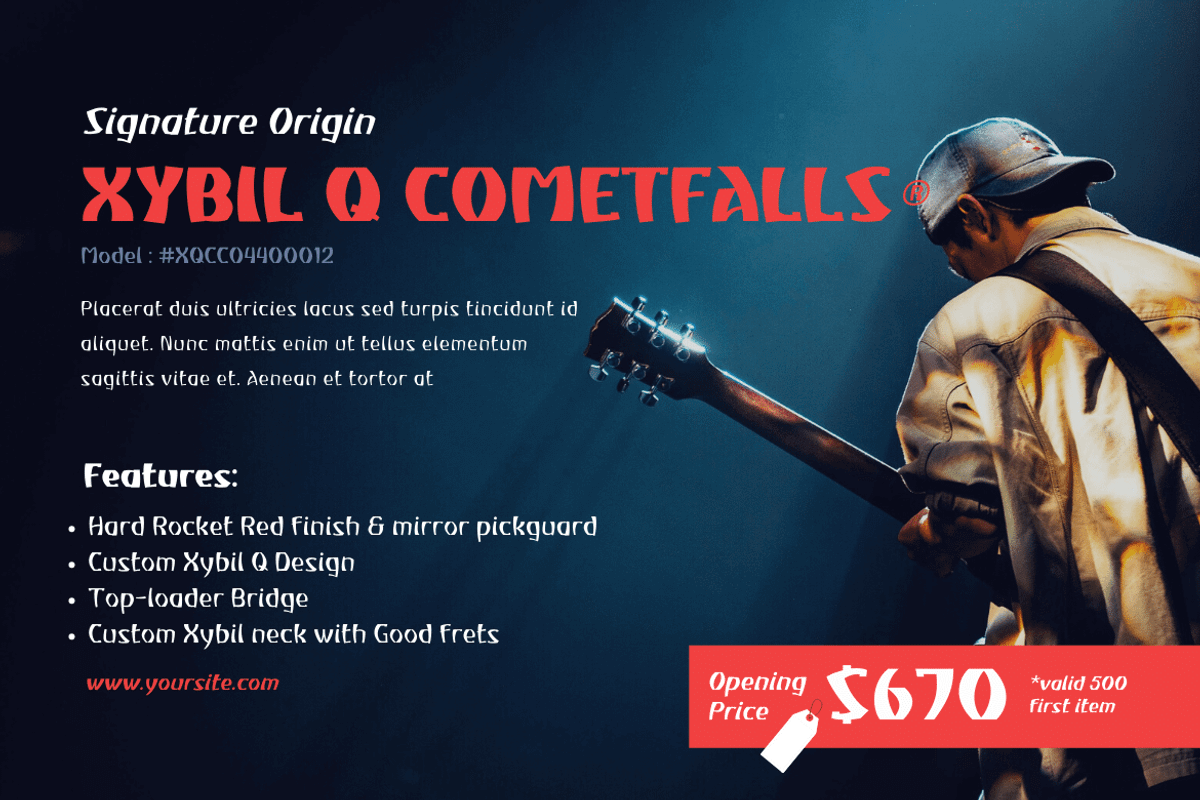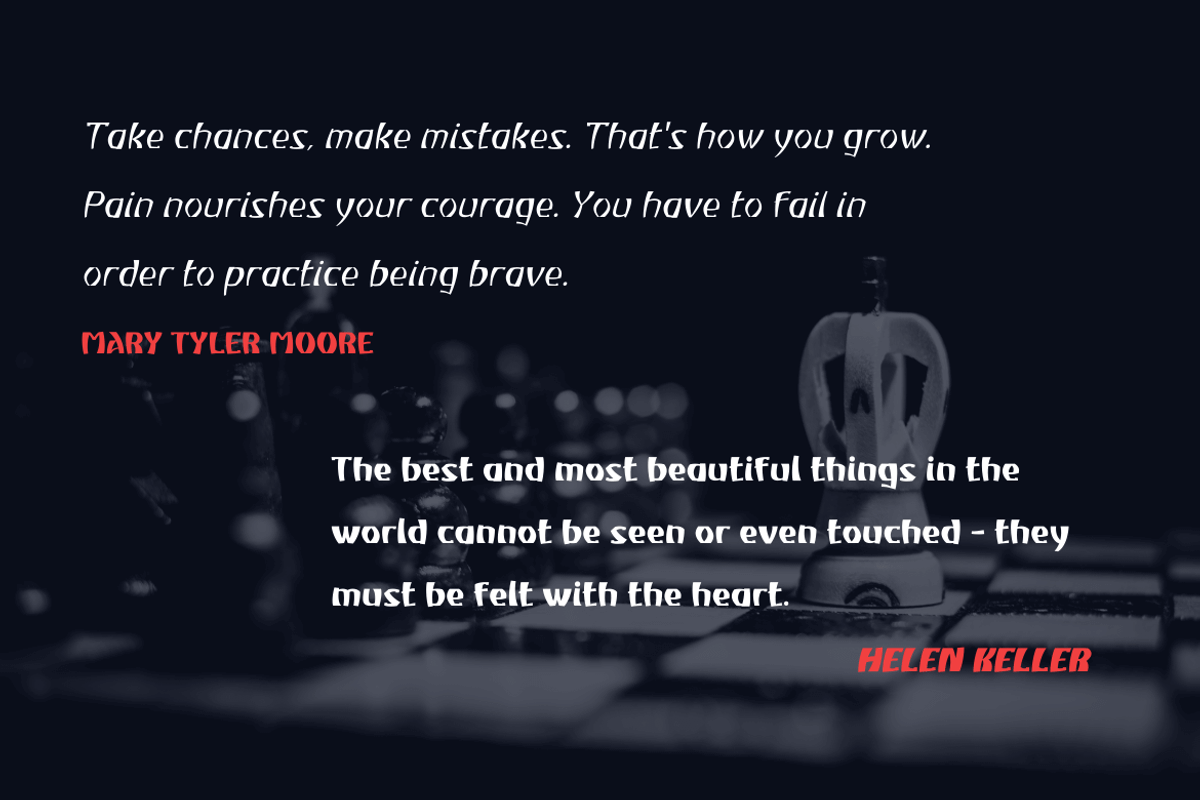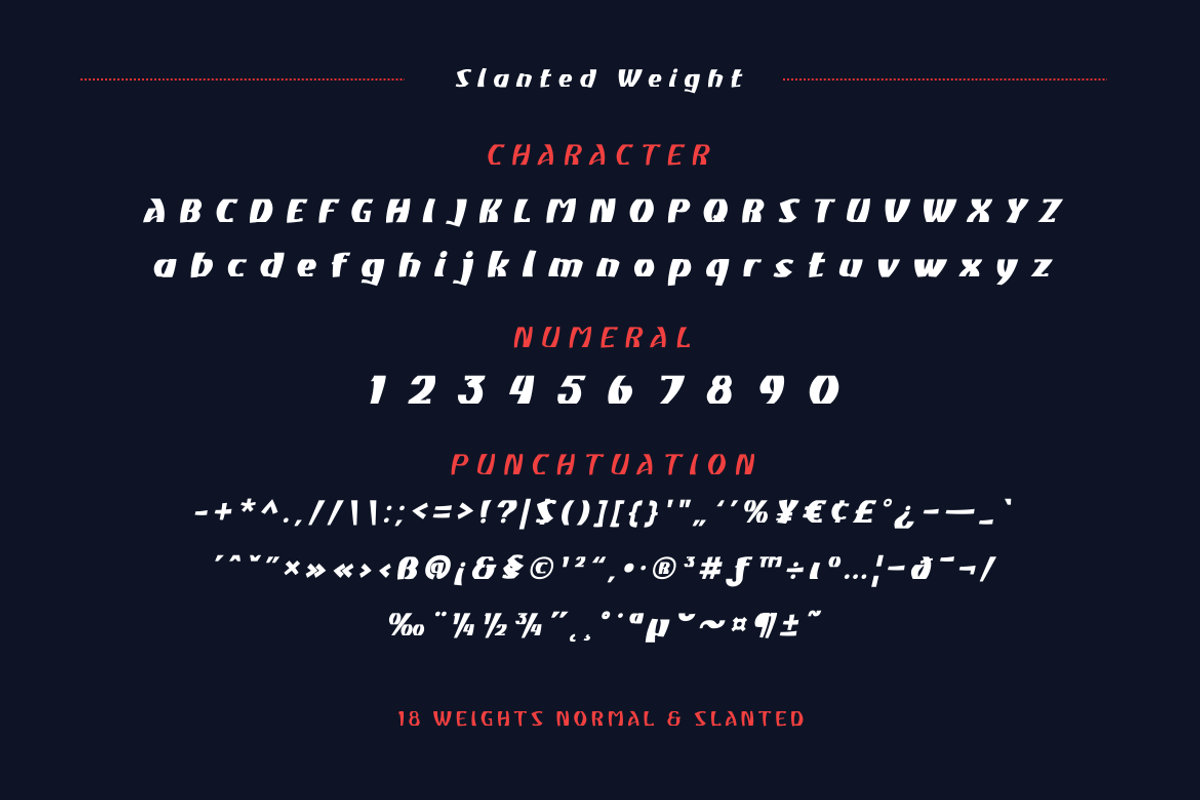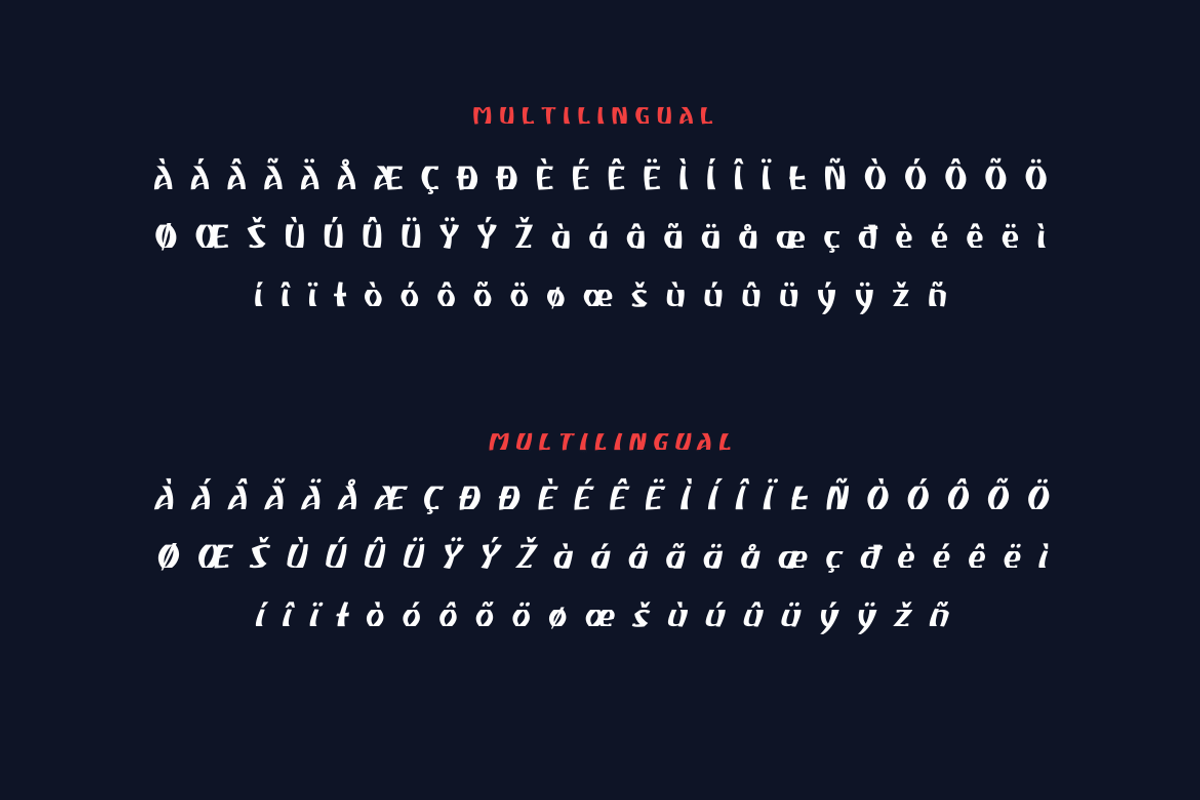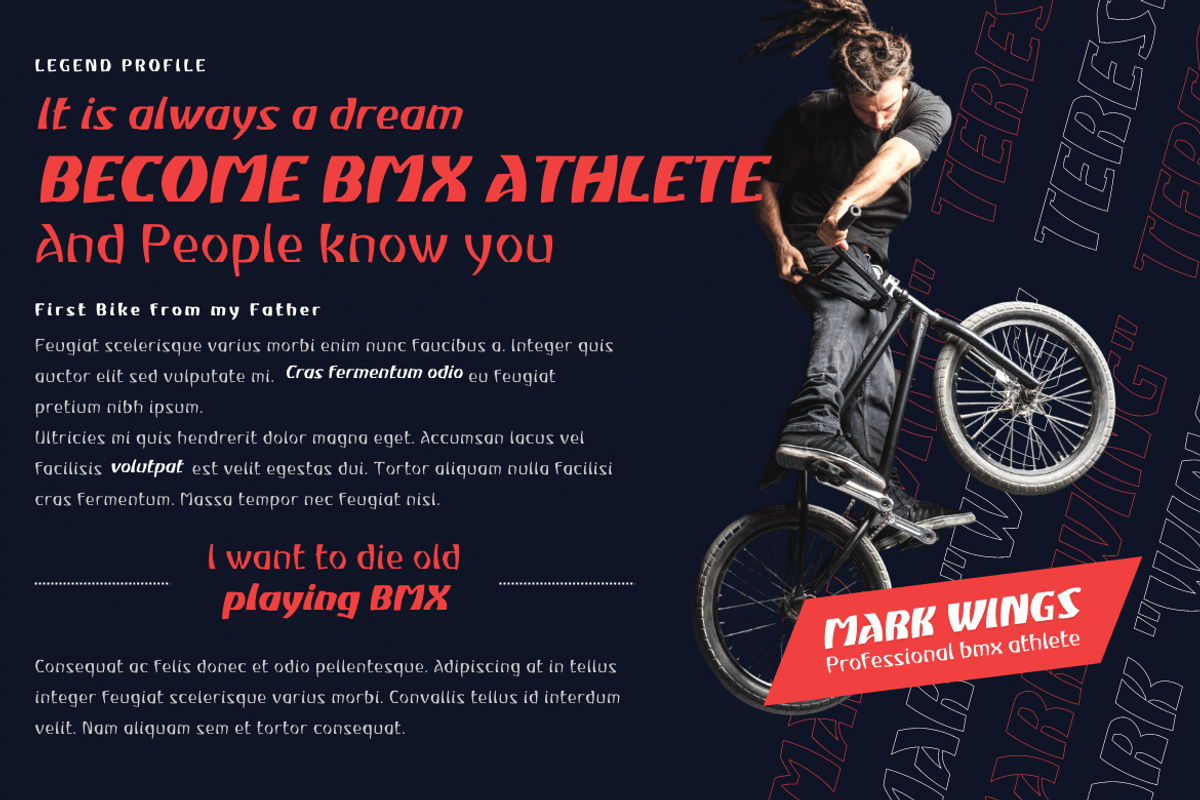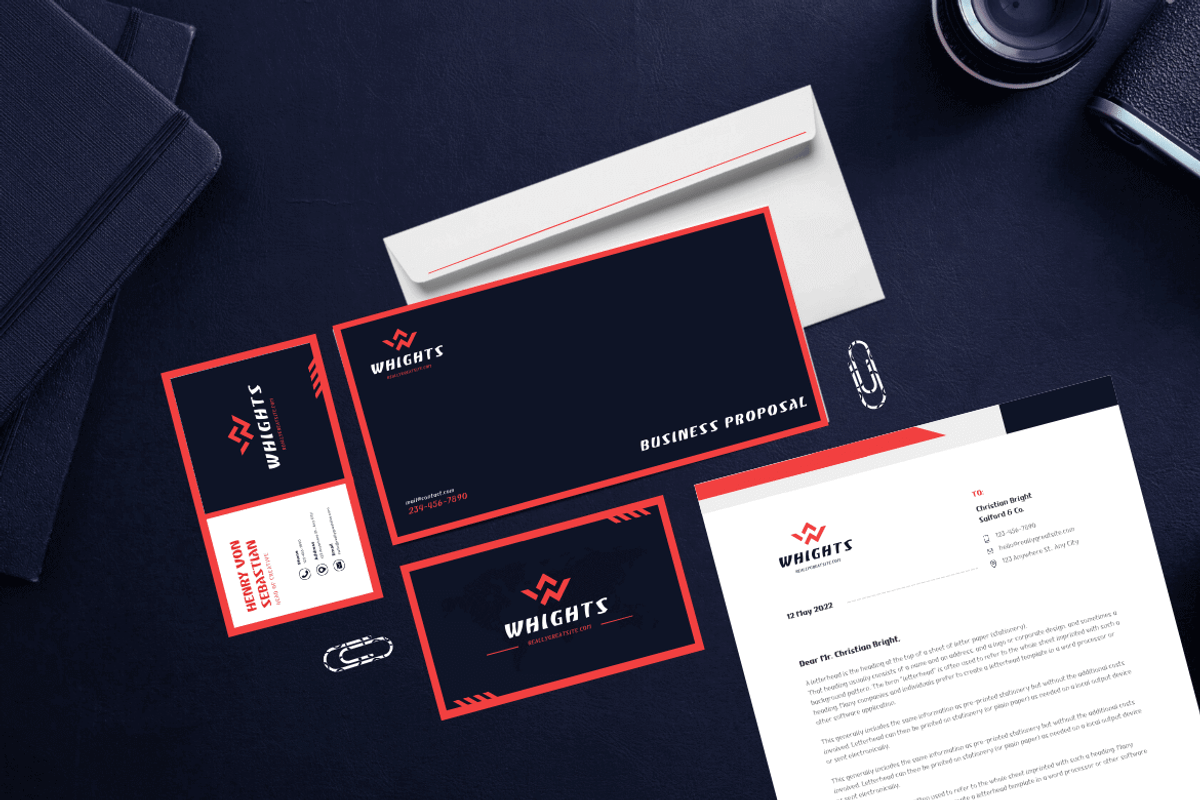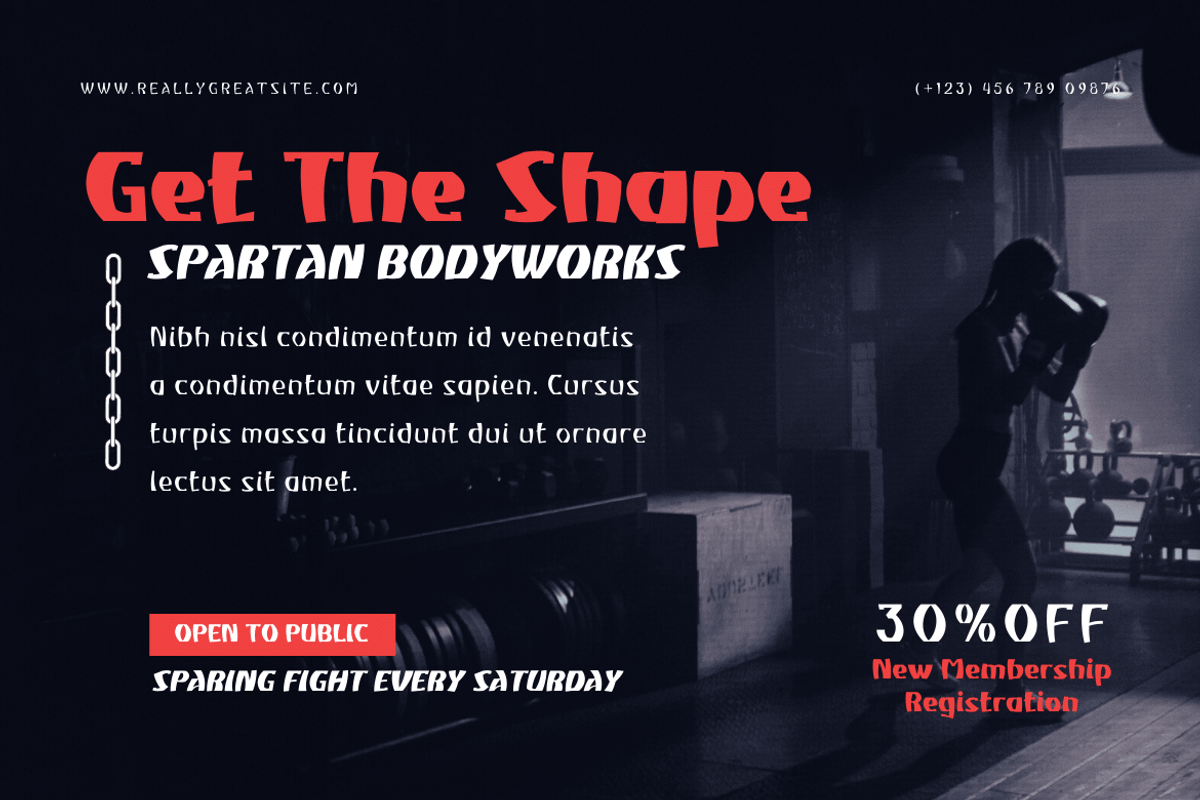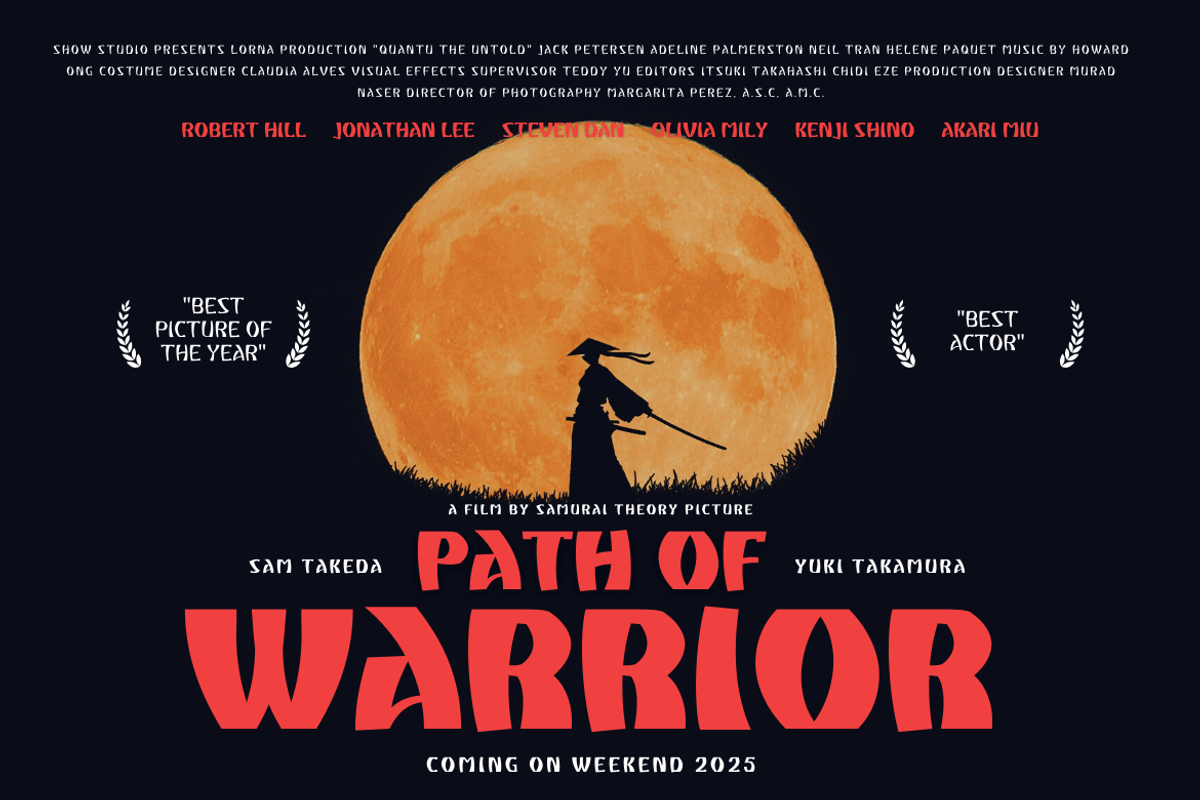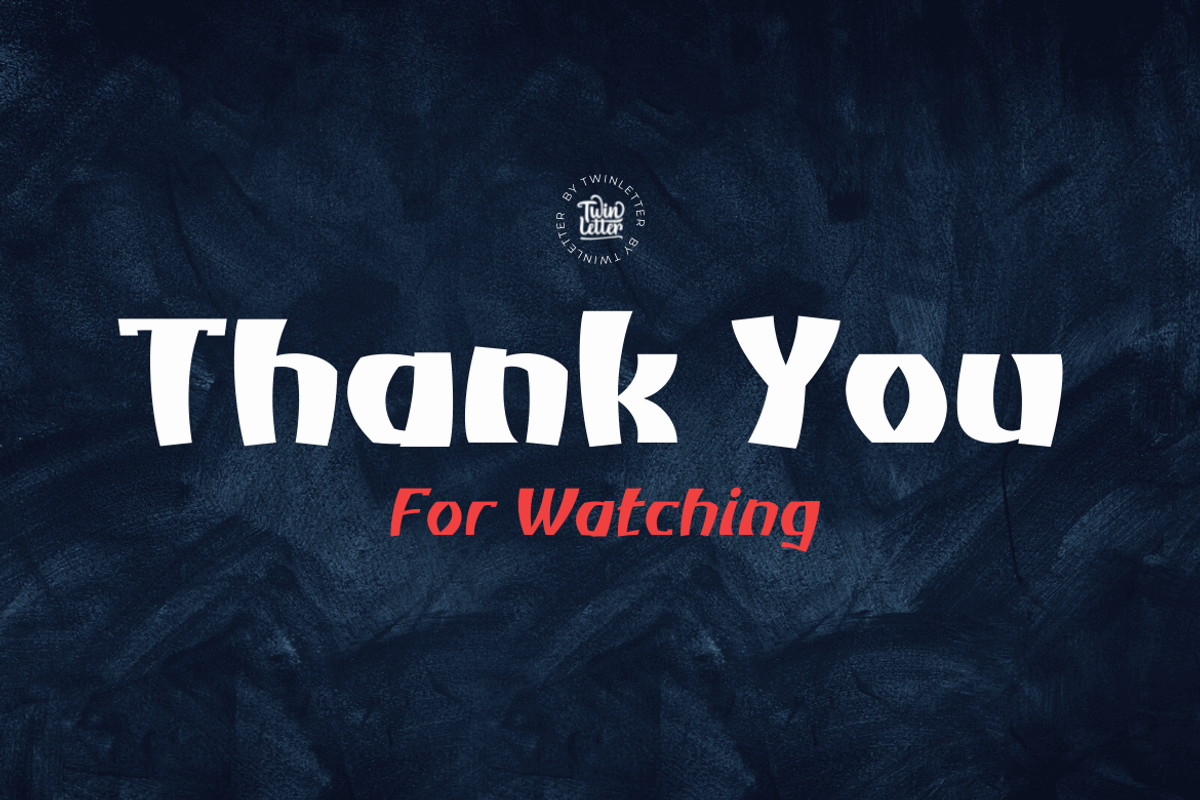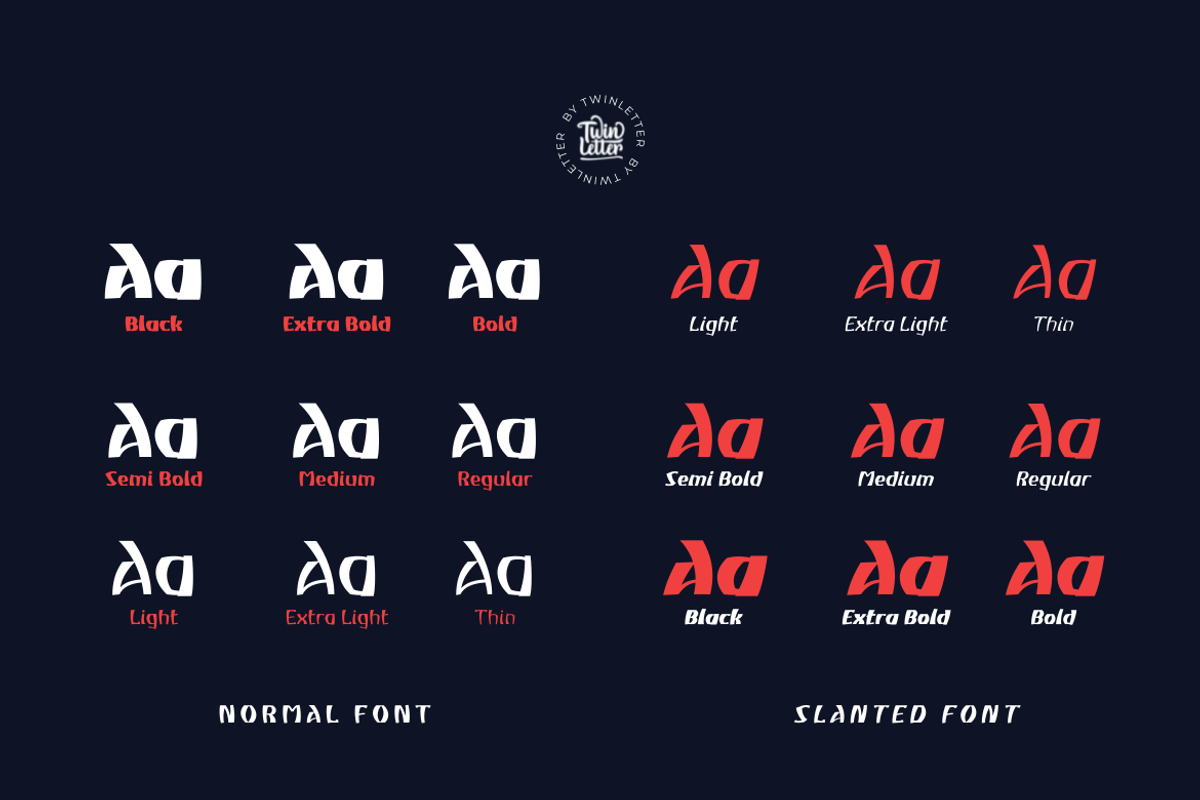
Atiku
For the next generation, Atiku is the font of choice. This one-of-a-kind and opulent font family was designed from the ground up with beauty and exoticism in mind. Customers recognize the value, sophistication, and uniqueness of your brand with just one glance. Each style in this impressive collection was created to help you get the most out of your designs: ads, posts, and a slew of other creative projects are all made easier with this lovely typeface. This font can be easily optimized for any project or client thanks to its many OpenType features and 18 different styles. With our newest font family, you’ll be able to create stunning looks in minutes.
of course, your various design projects will be perfect and extraordinary if you use this font because this font is equipped with a font family, both for titles and subtitles and sentence text, start using our fonts for your extraordinary projects.